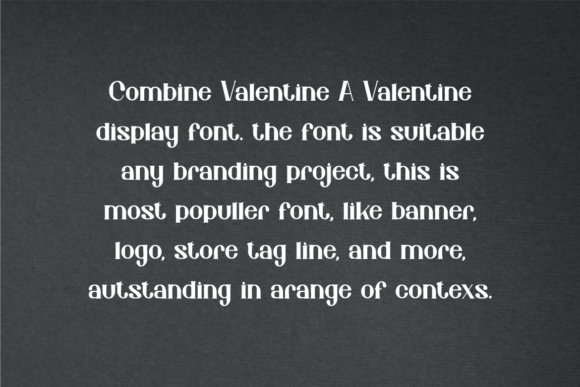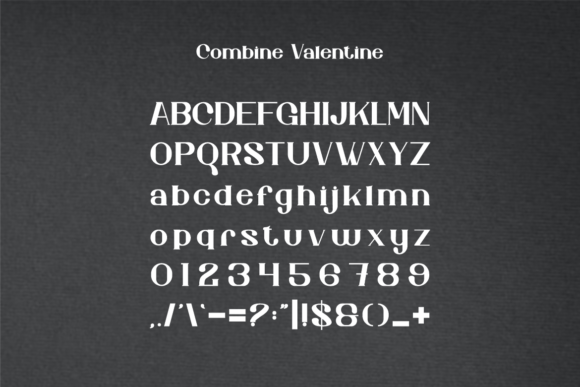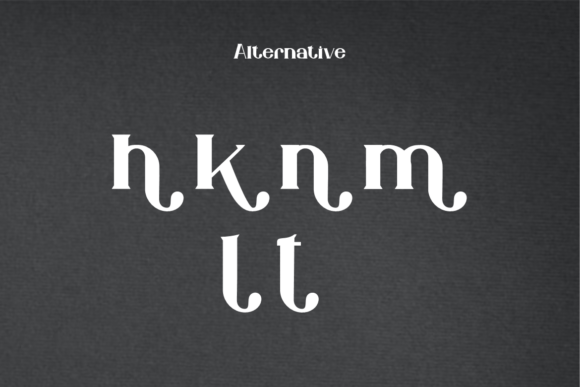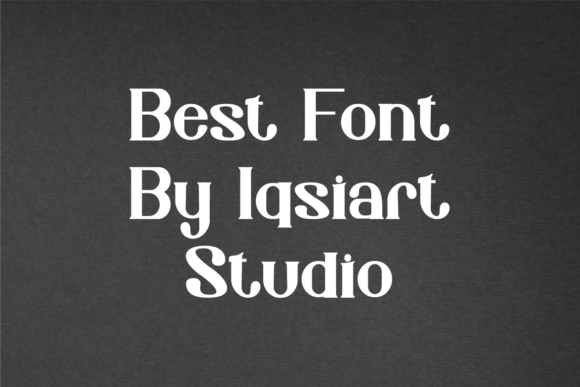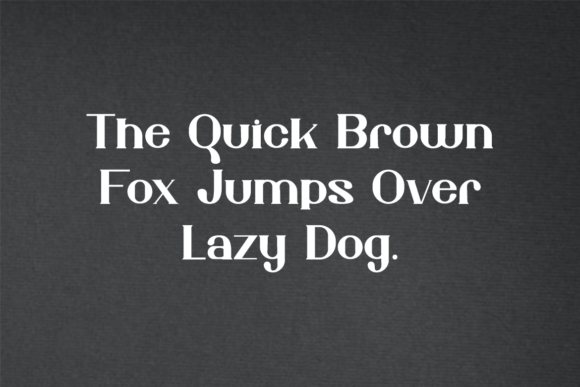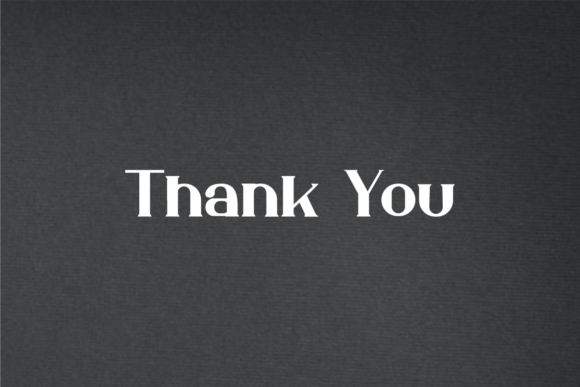
Introducing Combine Valentine Font: The Perfect Typeface for Romantic Designs
Are you looking for a font that exudes elegance and romance? Look no further than Combine Valentine Font, a modern and bold serif typeface that’s perfect for a variety of design projects. With its refined curves and strong structure, this font is ideal for designers and crafters who want to add a touch of sophistication and charm to their work.
What is Combine Valentine Font?
Combine Valentine Font is a carefully crafted typeface that’s designed to evoke feelings of love and romance. Its bold serif design makes it perfect for headlines, titles, and short paragraphs, while its elegant curves and refined structure ensure that it looks great in a variety of contexts. Whether you’re designing a wedding invitation, a love-themed poster, or a romantic editorial layout, Combine Valentine Font is the perfect choice.
Key Features of Combine Valentine Font
- Modern and bold serif design: Combine Valentine Font features a modern and bold serif design that’s perfect for making a statement.
- Elegant curves and refined structure: The font’s elegant curves and refined structure give it a sophisticated and charming feel.
- Perfect for romantic designs: Combine Valentine Font is ideal for wedding invitations, love-themed designs, posters, and editorial layouts.
- High-quality and versatile: The font is perfect for a variety of design projects, from branding and advertising to packaging and editorial design.
Use Cases for Combine Valentine Font
Combine Valentine Font is a versatile typeface that can be used in a variety of design projects. Here are some use cases to consider:
- Wedding invitations and stationery: The font’s elegant curves and refined structure make it perfect for wedding invitations, save-the-date cards, and other stationery.
- Love-themed designs: Combine Valentine Font is ideal for designing love-themed posters, flyers, and brochures.
- Branding and advertising: The font’s bold serif design makes it perfect for branding and advertising projects, such as logos, headlines, and taglines.
- Editorial layouts: Combine Valentine Font can be used in editorial layouts, such as magazine articles, blog posts, and newsletters.
Why Choose Combine Valentine Font?
There are many reasons to choose Combine Valentine Font for your design projects. Here are a few:
- Unique and elegant design: Combine Valentine Font features a unique and elegant design that’s sure to stand out.
- High-quality and versatile: The font is perfect for a variety of design projects, from branding and advertising to packaging and editorial design.
- Easy to read and understand: The font’s clear and refined structure makes it easy to read and understand, even in small sizes.
How to Use Combine Valentine Font
Using Combine Valentine Font is easy. Here are a few tips to get you started:
- Pair it with other fonts: Combine Valentine Font looks great when paired with other fonts, such as sans-serif fonts or script fonts.
- Use it for headlines and titles: The font’s bold serif design makes it perfect for headlines and titles.
- Experiment with different colors and textures: Combine Valentine Font looks great in a variety of colors and textures, so don’t be afraid to experiment.
Combine Valentine Font is a modern and bold serif typeface that’s perfect for designers and crafters who want to add a touch of sophistication and charm to their work. With its refined curves and strong structure, this font is ideal for a variety of design projects, from wedding invitations and love-themed designs to branding and editorial layouts. So why wait? Download Combine Valentine Font today and start creating beautiful, romantic designs.